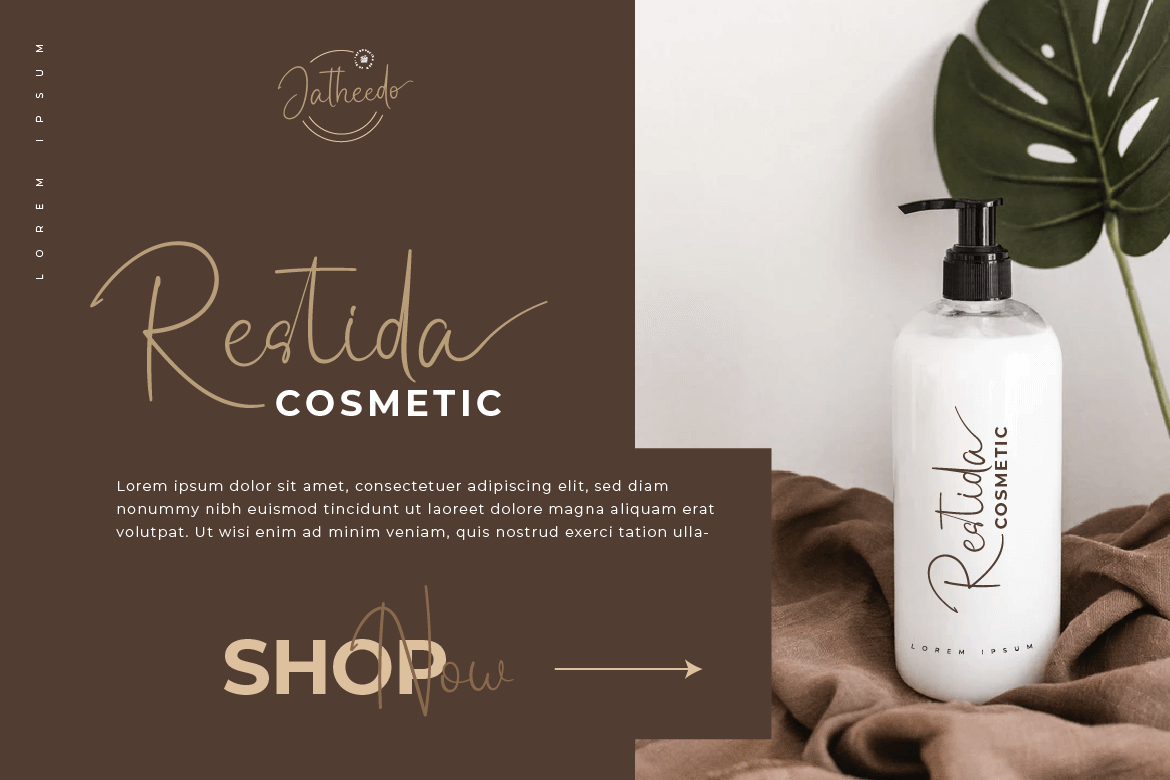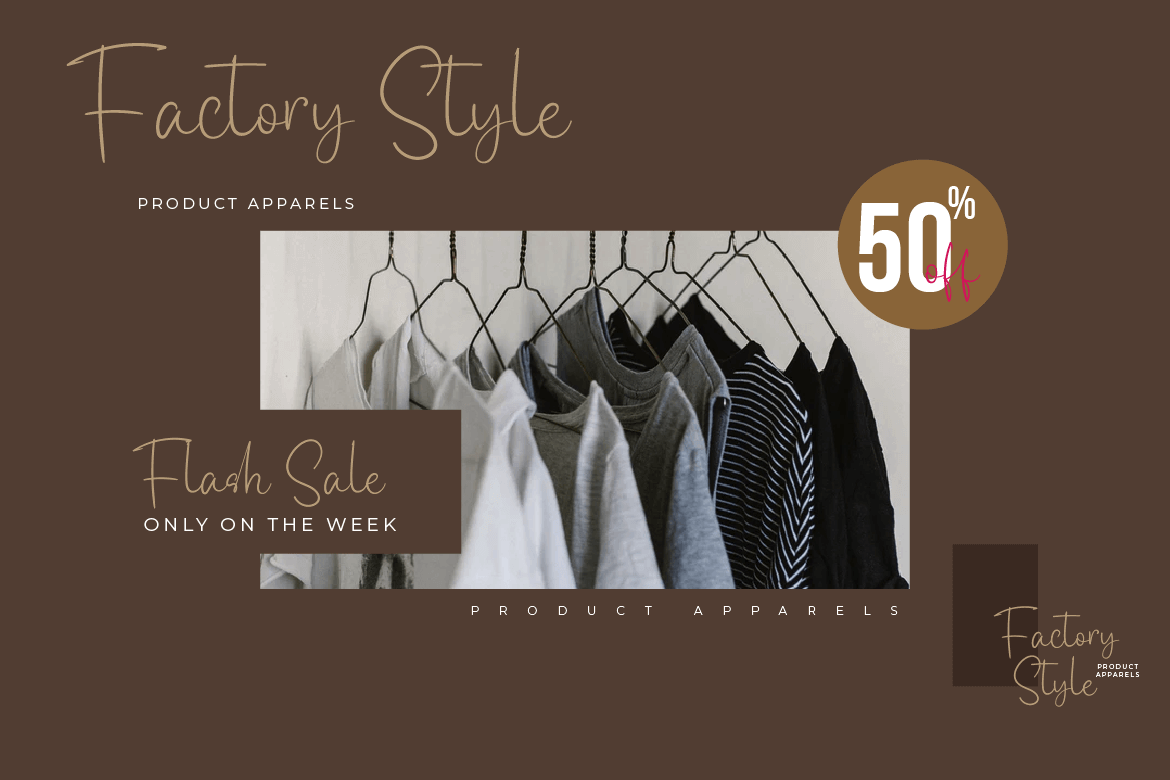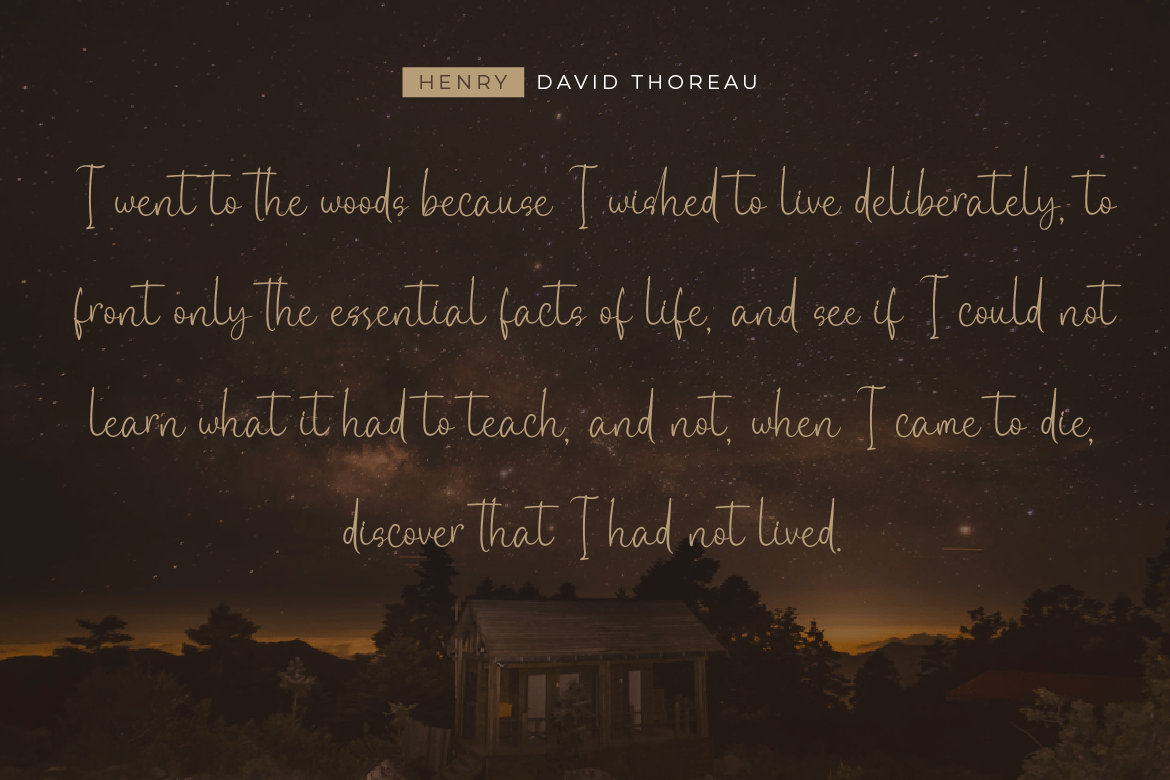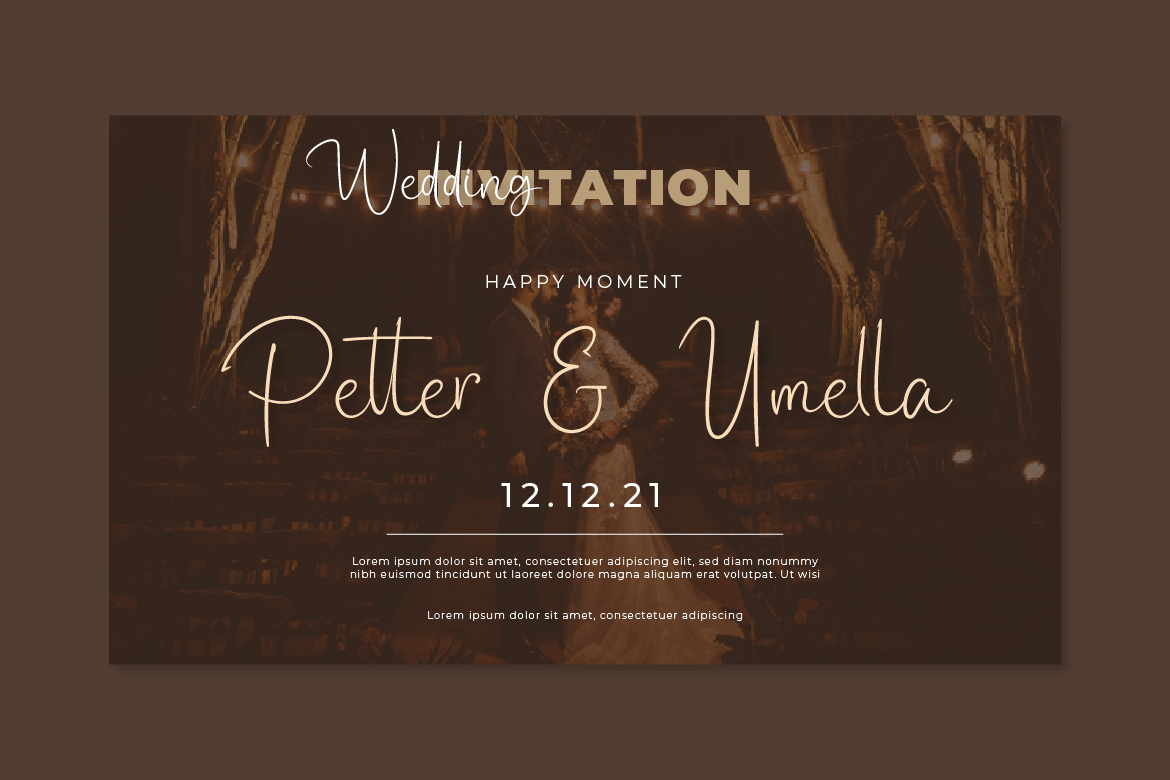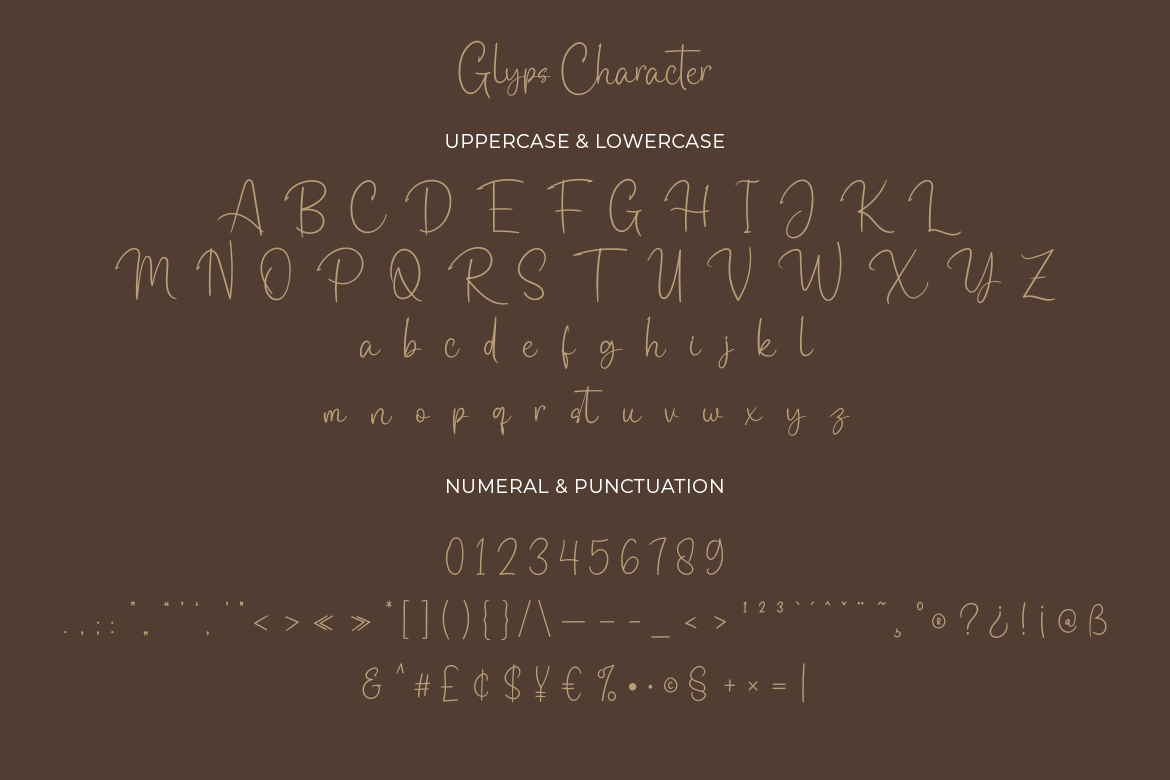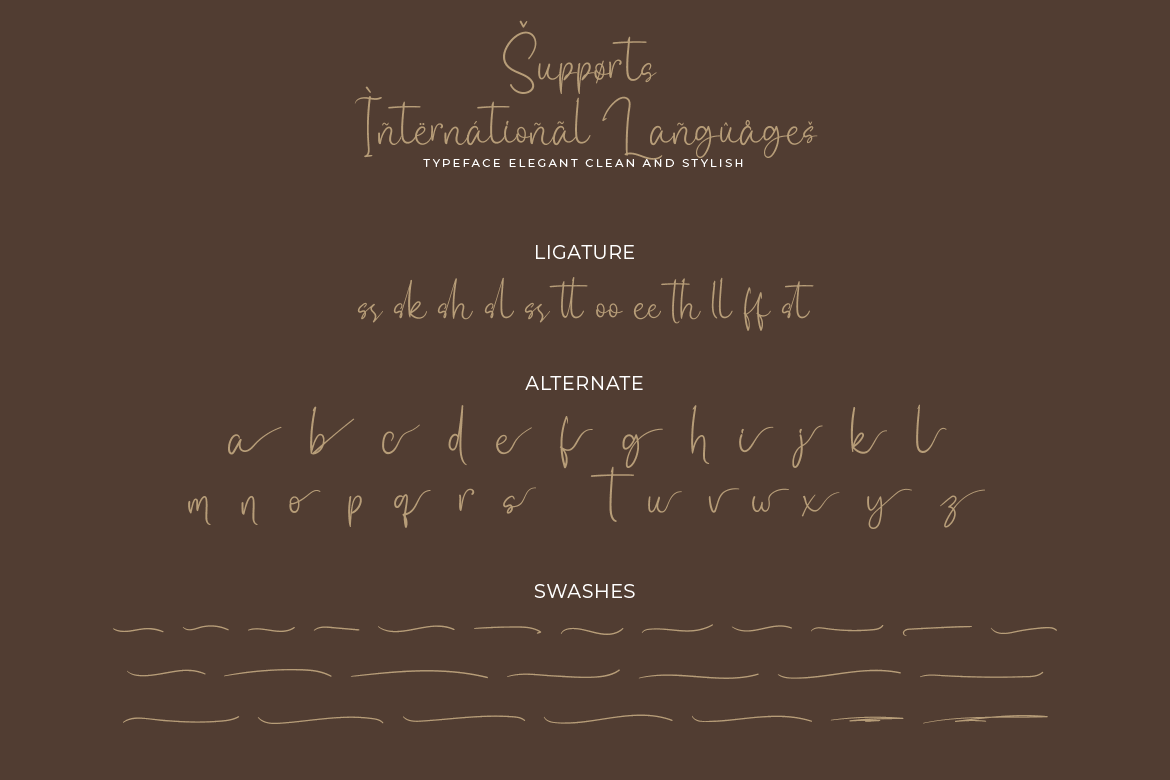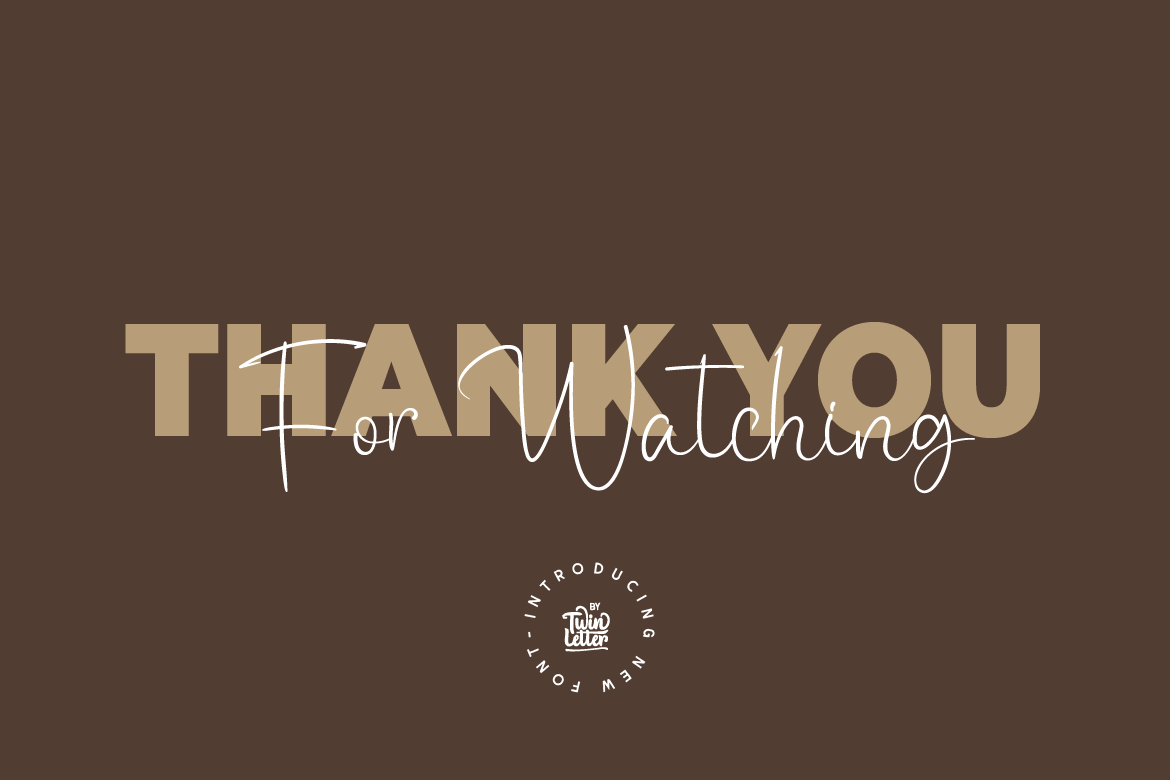
Jatheedo
Jatheedo is a typeface created with original handwriting that may anesthetize your eyes and give a wonderful and beautiful impression. This font is highly versatile in its use.
Because of its strong character, this font is attractive when used alone, but it is also stunning when paired with sans or sans serif letters. So, what are you waiting for? Enjoy and give your project a unique appearance.
This typeface was created with a natural touch of handwriting that has been developed to generate parts and compositions that meet your requirements. As a result, this typeface is ideal for crafts, children’s writing, adventure posters, food banner titles, wedding invitations, and logos for product packaging.
- Fonts include multilingual support for; Afrikaans, Albanian, Croatian, Czech, Danish, Dutch, English, Estonian, Finnish, French, German, Hungarian, Italian, Norwegian, Polish, Portuguese, Slovak, Slovenian, Spanish, Swedish